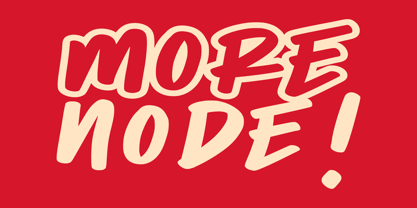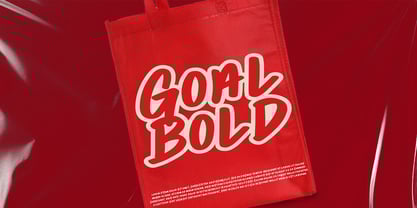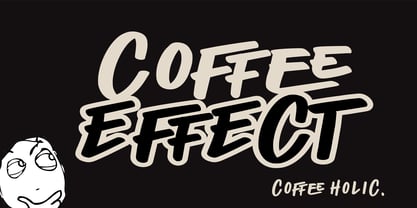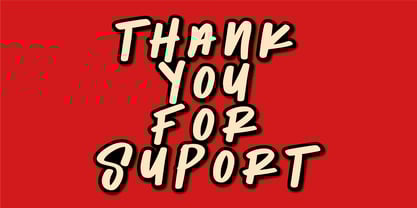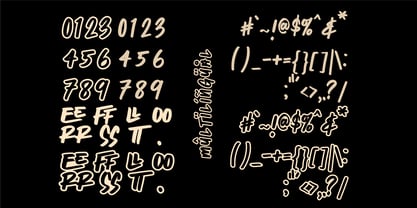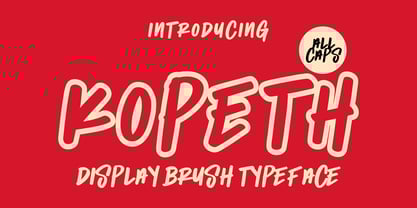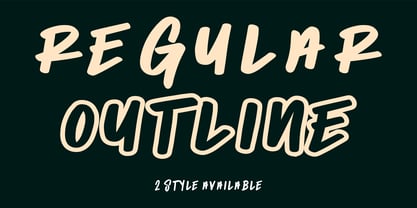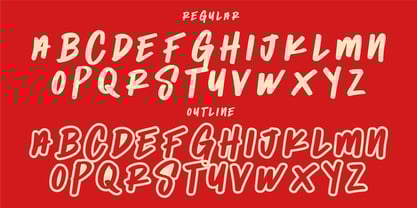
Kopeth
by Zamjump
The Kopeth Font Family was designed by Zamjump, Ahmad Zamzami and published by Zamjump. Kopeth contains 2 styles and family package options. More about this family
Kopeth is a versatile display brush font that comes in two different styles Regular and Outline. With its bold and expressive strokes it will give your projects a handmade touch.
The Dynamic and artistic style makes it a perfect choice for poster projects, logos, packaging, social media graphics, and more.
Unleash your creativity with Kopeth and bring your designs to life with its unique and stylish character!
Designers: Zamjump, Ahmad Zamzami
Foundry: Zamjump